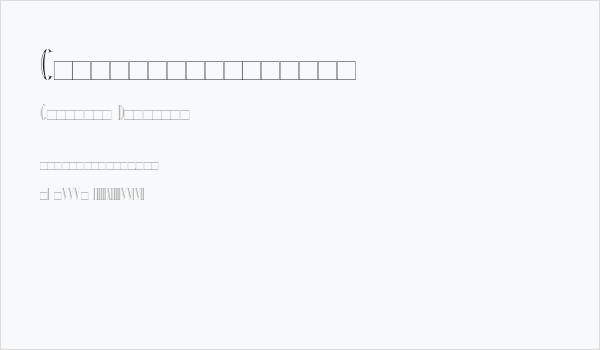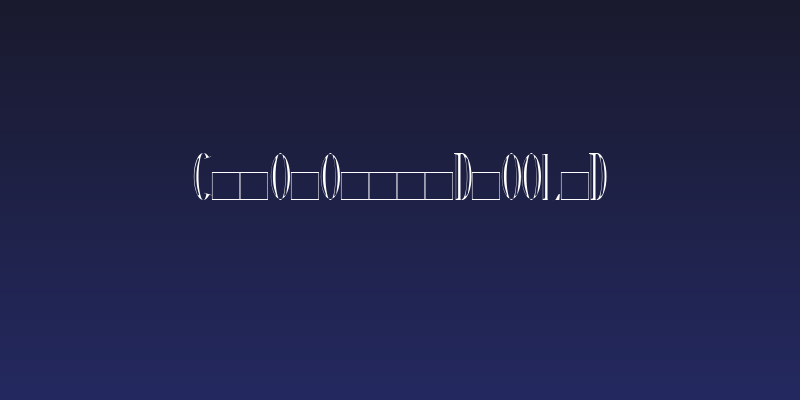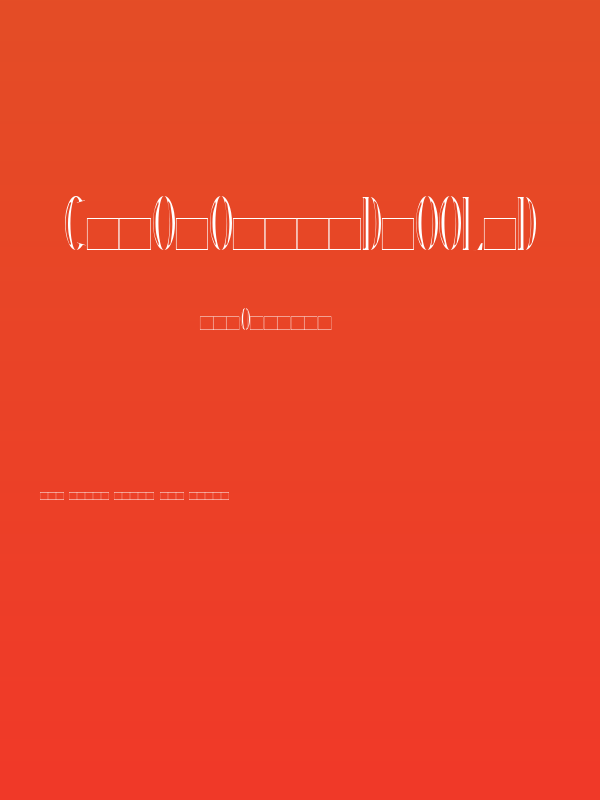
ChronosHandTooled Font
ChronosHandTooled Description
This font features a unique hand-tooled appearance, combining elements of both traditional and modern design. The characters are crafted with intricate detailing, giving them a three-dimensional effect that mimics the look of engraved or embossed text. The uppercase letters are bold and commanding, while the lowercase letters maintain a consistent style that complements the overall aesthetic. Numbers and special characters are designed with the same attention to detail, ensuring a cohesive look across all text. This font is ideal for projects that require a touch of elegance and sophistication, such as invitations, branding, and decorative signage.